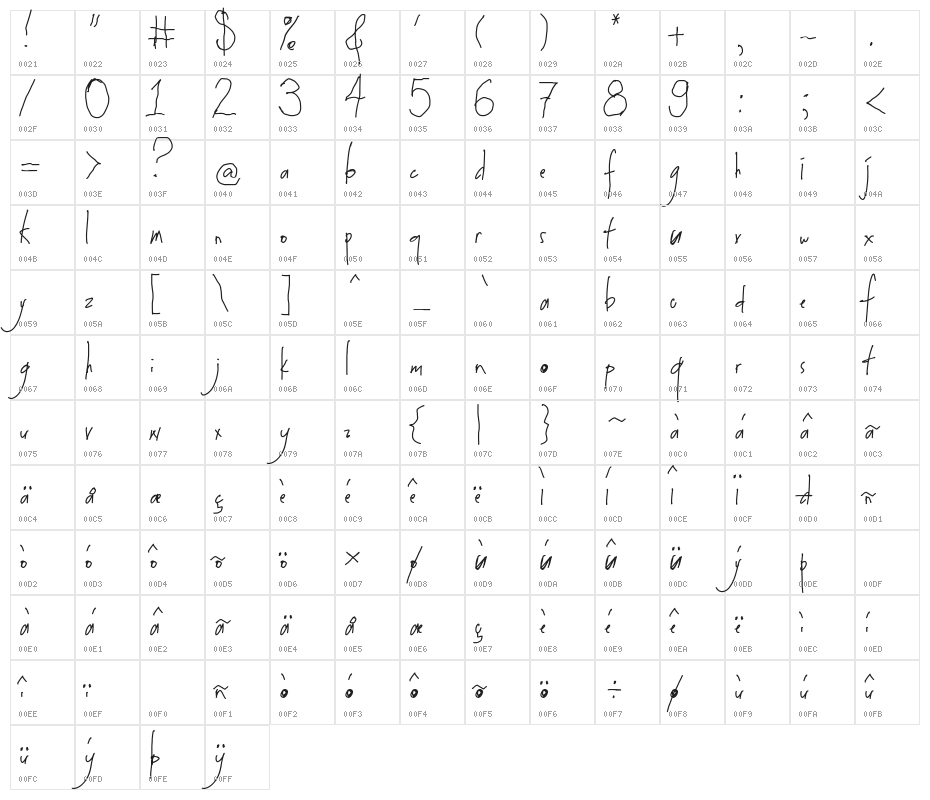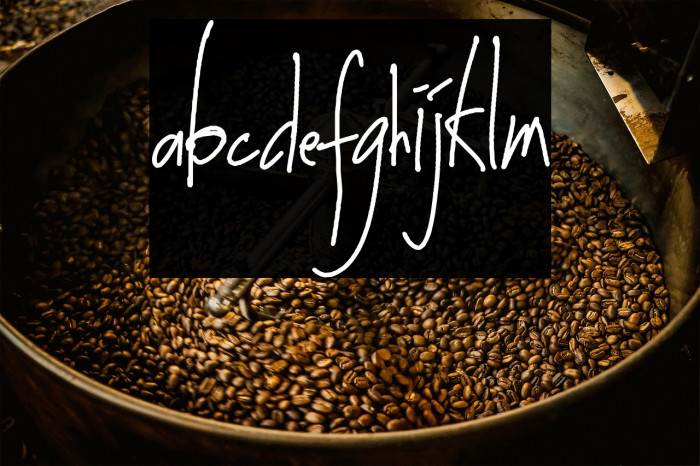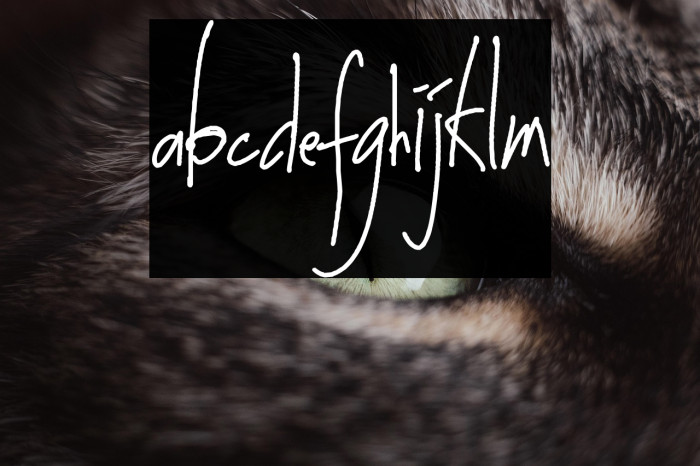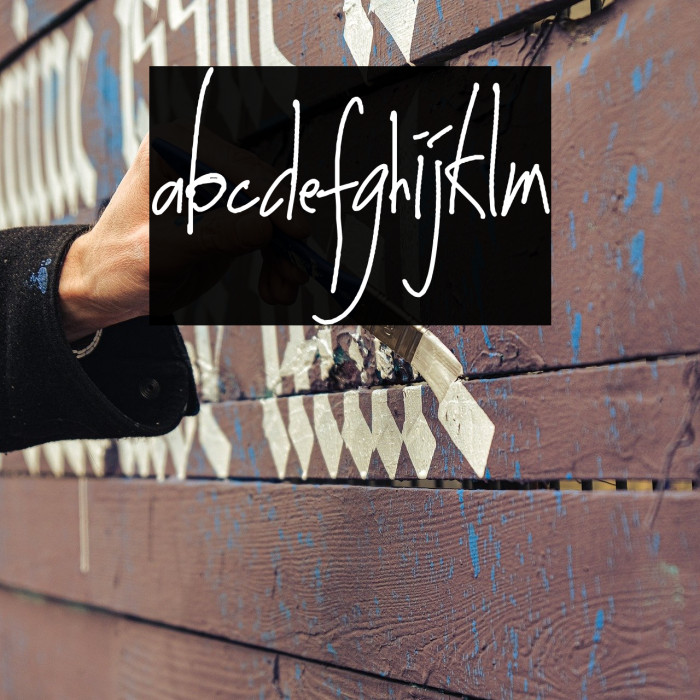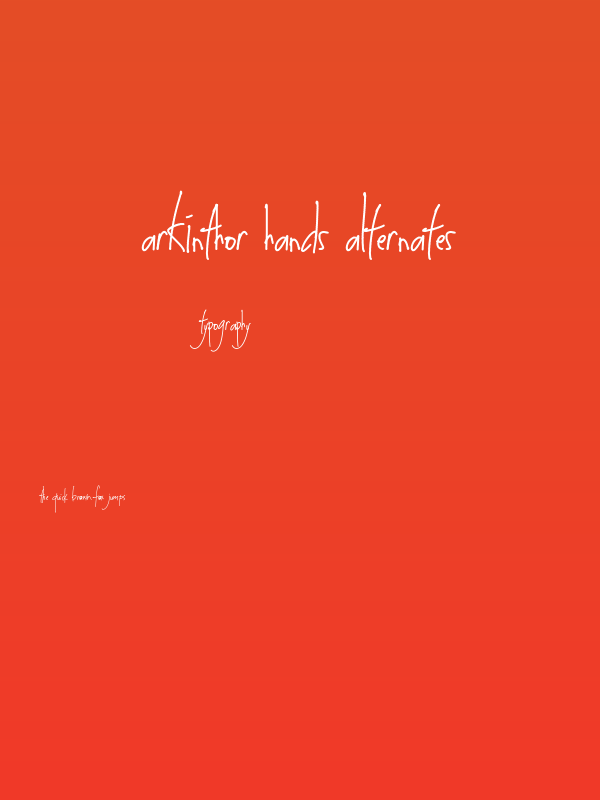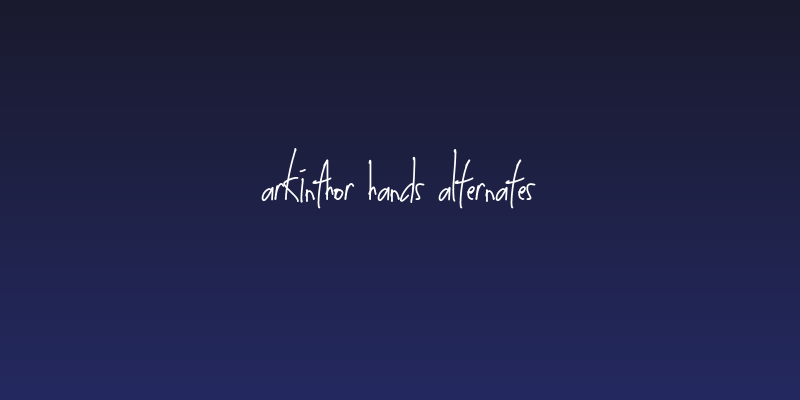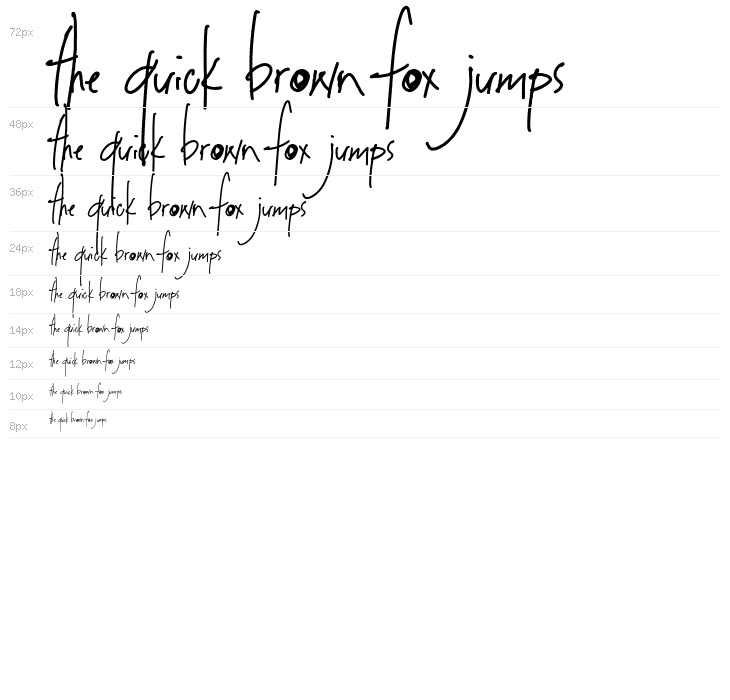
Arkinthor Hands Alternates Font
Arkinthor Hands Alternates Description
A highly expressive, irregular handwritten font with exaggerated ascenders and descenders, featuring uneven stroke thickness and a spontaneous, sketch-like appearance. The characters are loosely spaced and vary in height, creating a dynamic and energetic feel.
| Overall Style | Decorative, Artistic, Expressive |
| Use Case | Logos, Posters, Artistic projects, Short headlines |
| Proposed Projects | Artistic posters, album covers, personal branding, creative invitations, expressive quotes. |